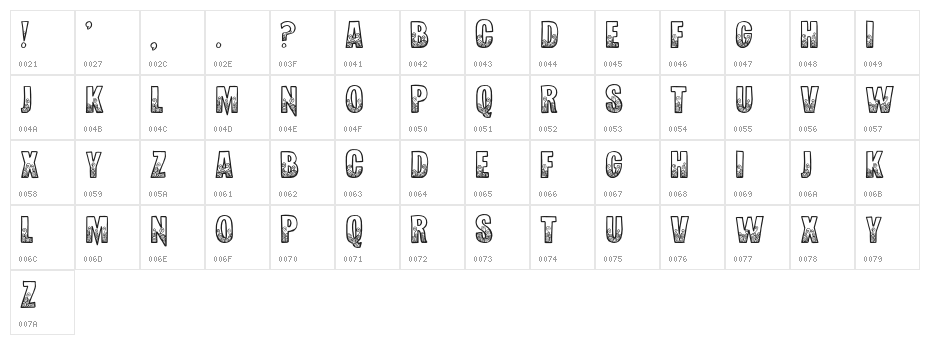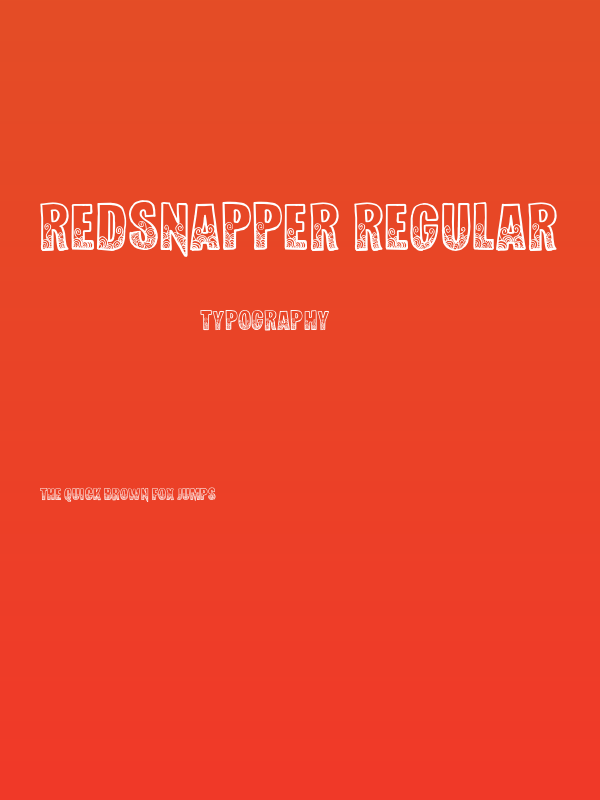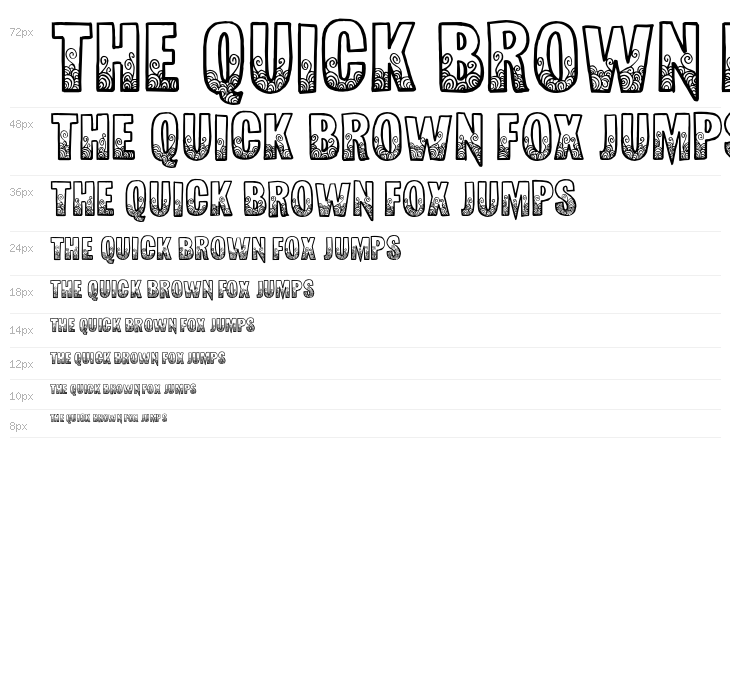
RedSnapper-Regular Font
RedSnapper-Regular Description
This font features a bold and decorative style with intricate floral patterns embedded within each character. The uppercase letters are prominent and eye-catching, making them ideal for designs that require a strong visual impact. The font's unique design elements give it a playful yet sophisticated look, suitable for creative projects. The characters are evenly spaced, ensuring readability while maintaining their decorative appeal. The font's distinct style makes it versatile for various design applications, from posters to branding materials.
| Proposed Projects | Ideal for use in posters, branding, invitations, and any project requiring a decorative and bold typeface. |